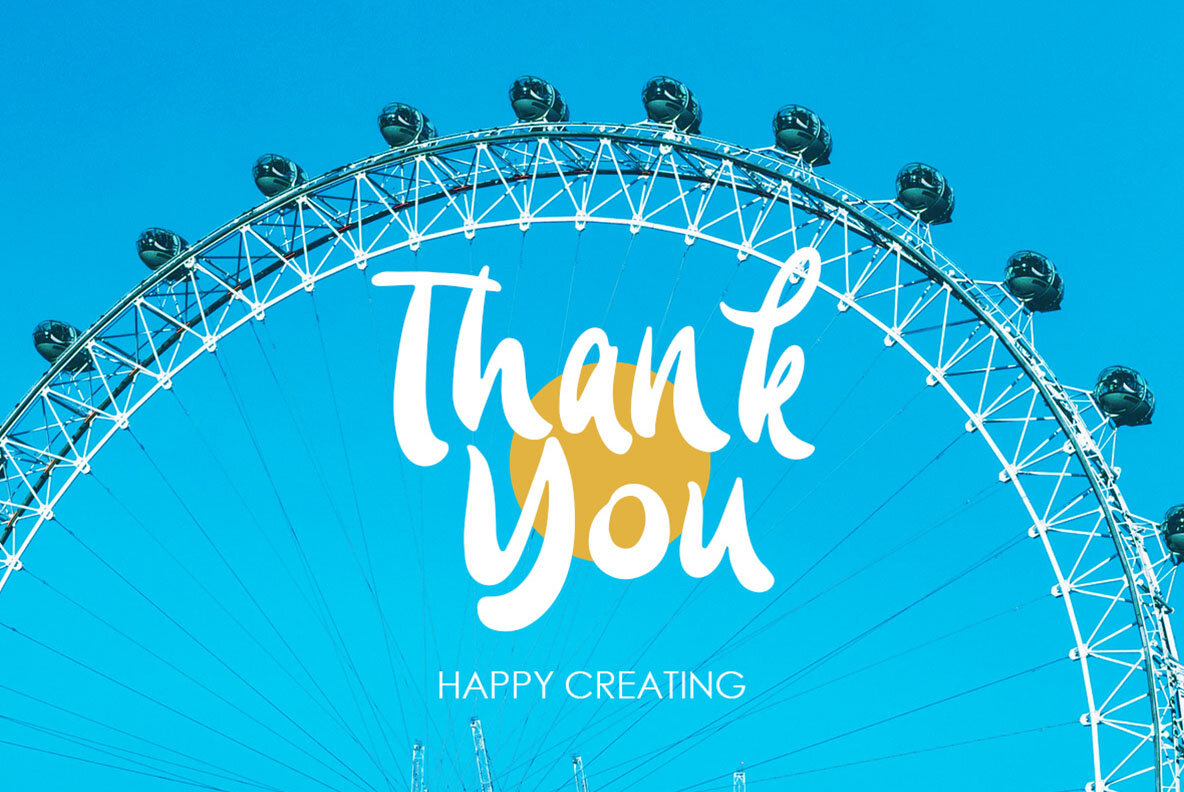
Blue Carousel Font
Blue Carousel
Blue Carousel captures an essence of playful elegance, combining bold strokes with a handwritten aesthetic that brings a lively touch to any project. This font is ideal for logos, setting an inviting tone, and also finds its place in formal applications like invitations, labels, and greeting cards. Its versatility extends further to books, magazines, and diverse advertising purposes, where it adds a unique flair. Optimal use of Blue Carousel requires software that supports OpenType features and access to Glyphs panels, such as Adobe applications and Corel Draw, enabling the exploration of its full suite of stylistic options.Blue Carousel: A Bold Handwritten Script Typeface